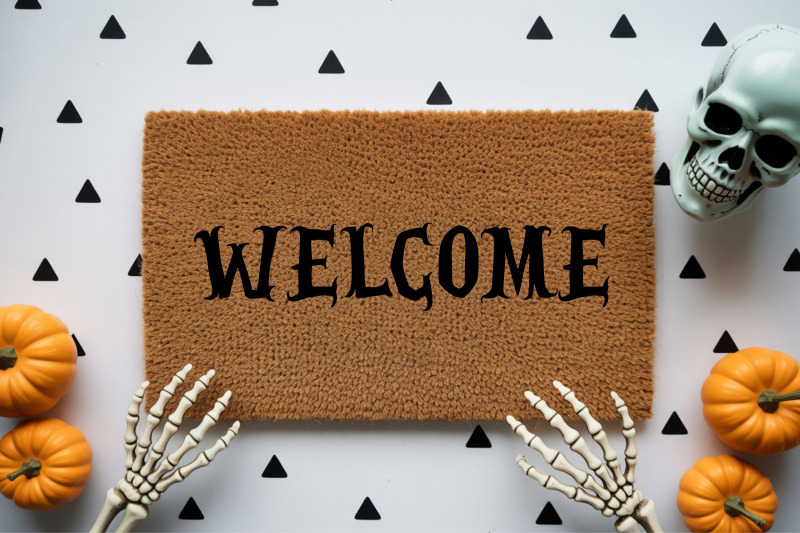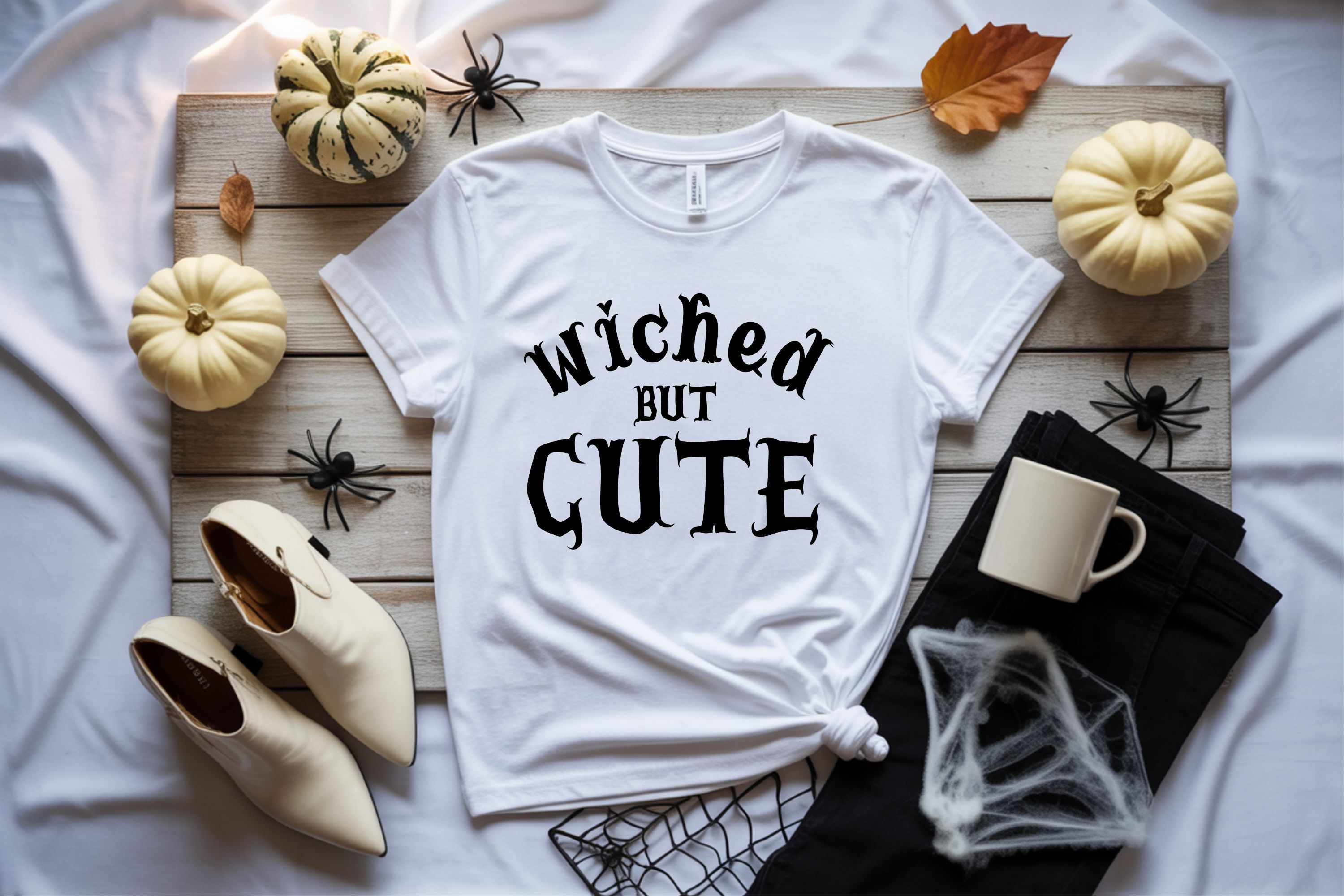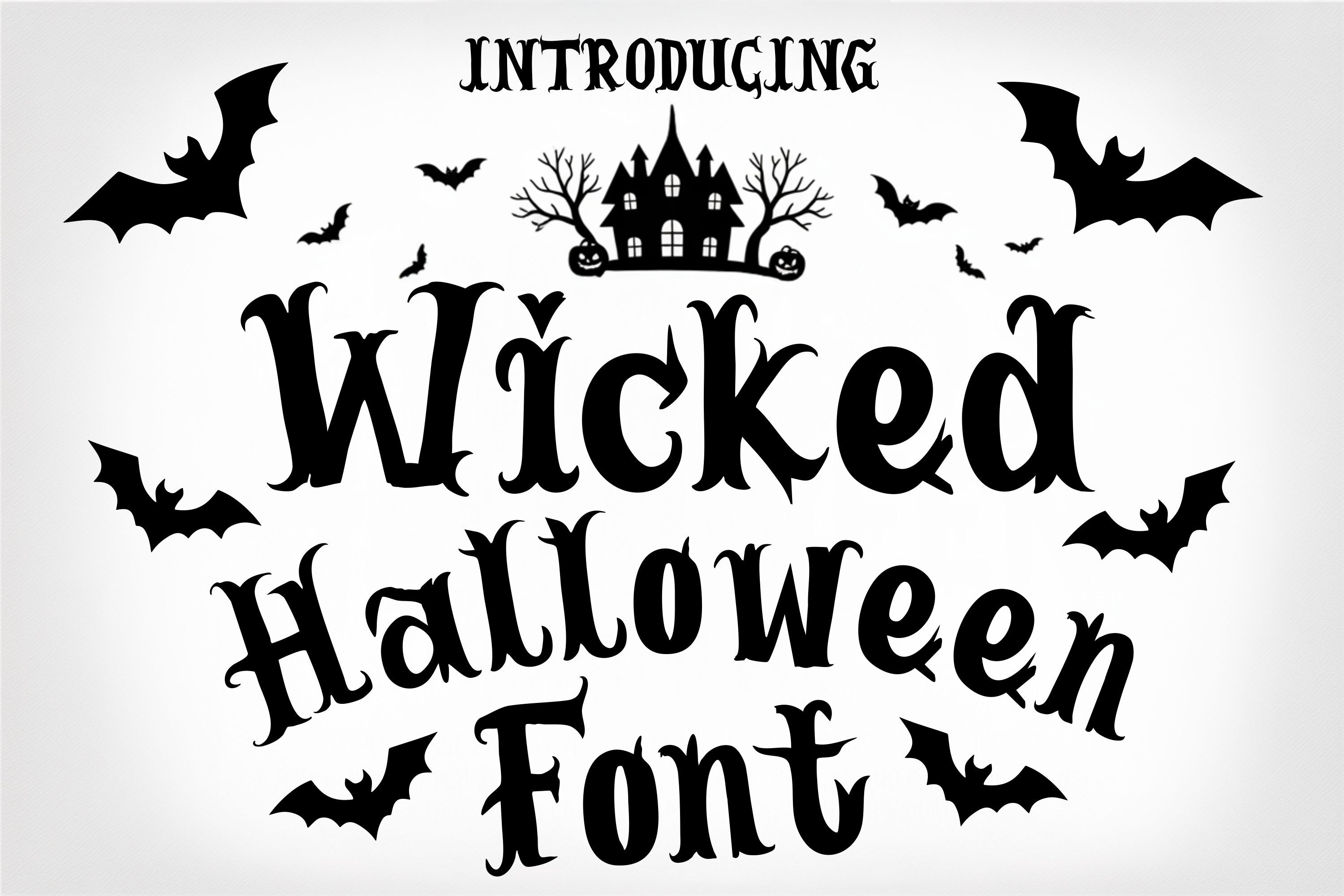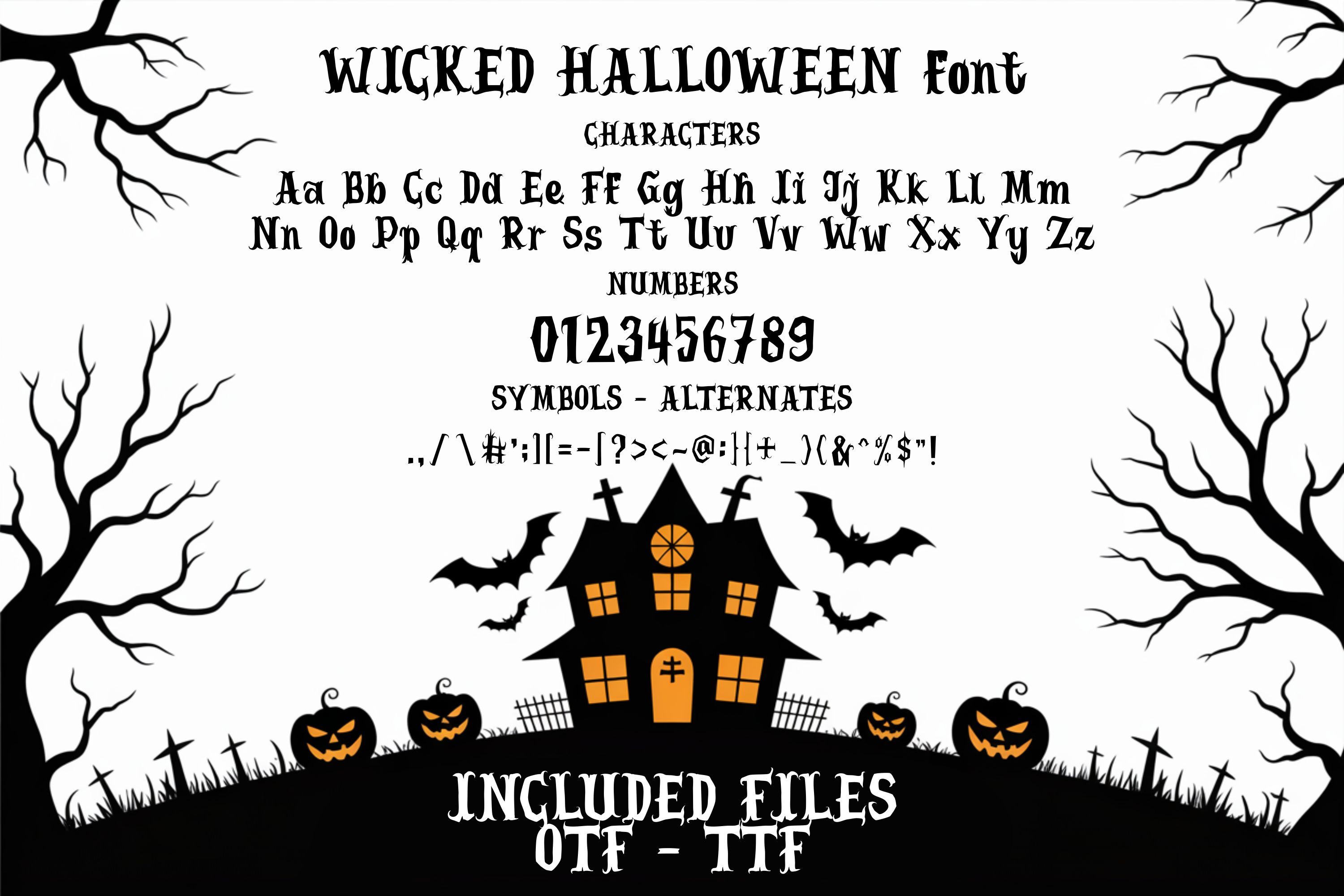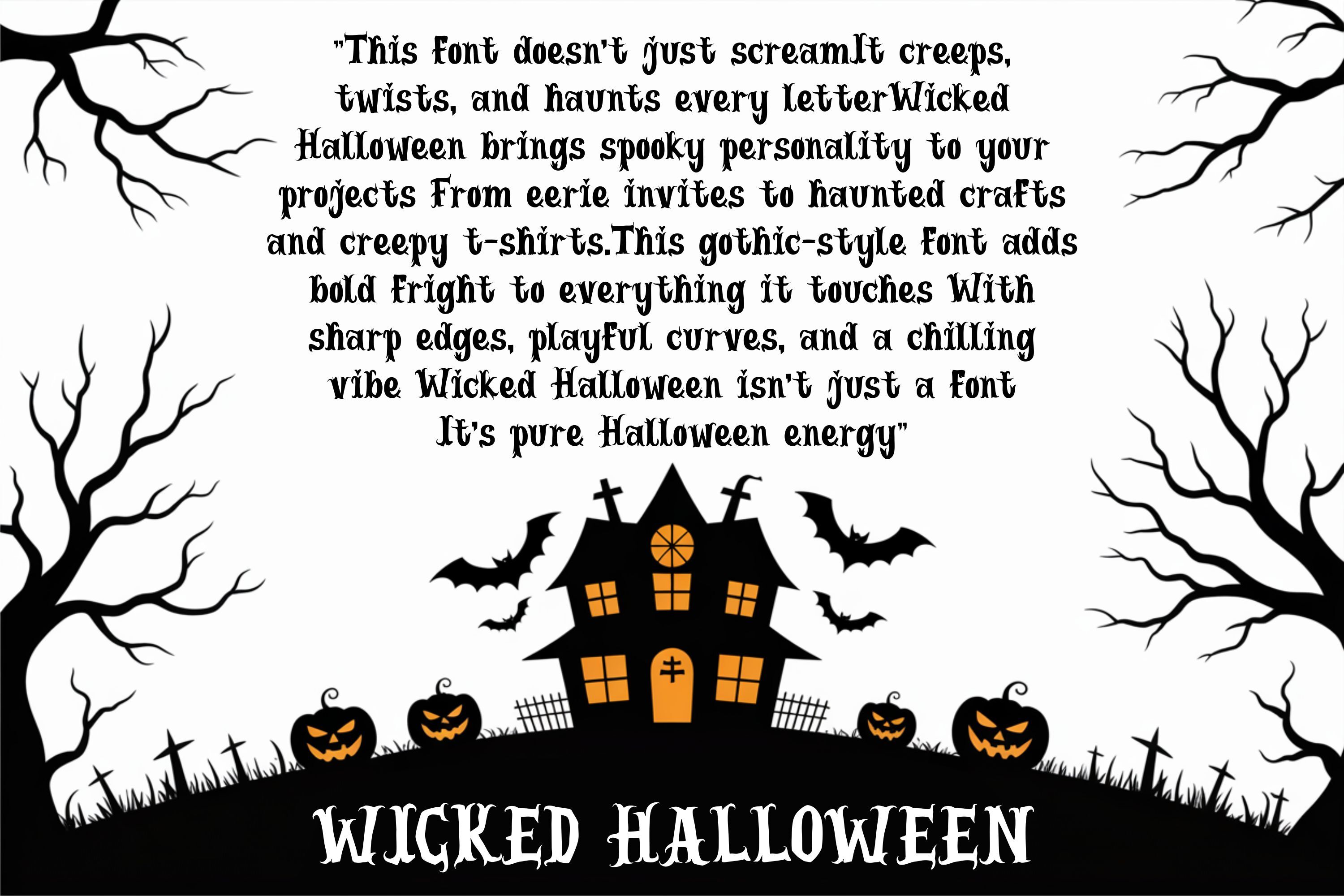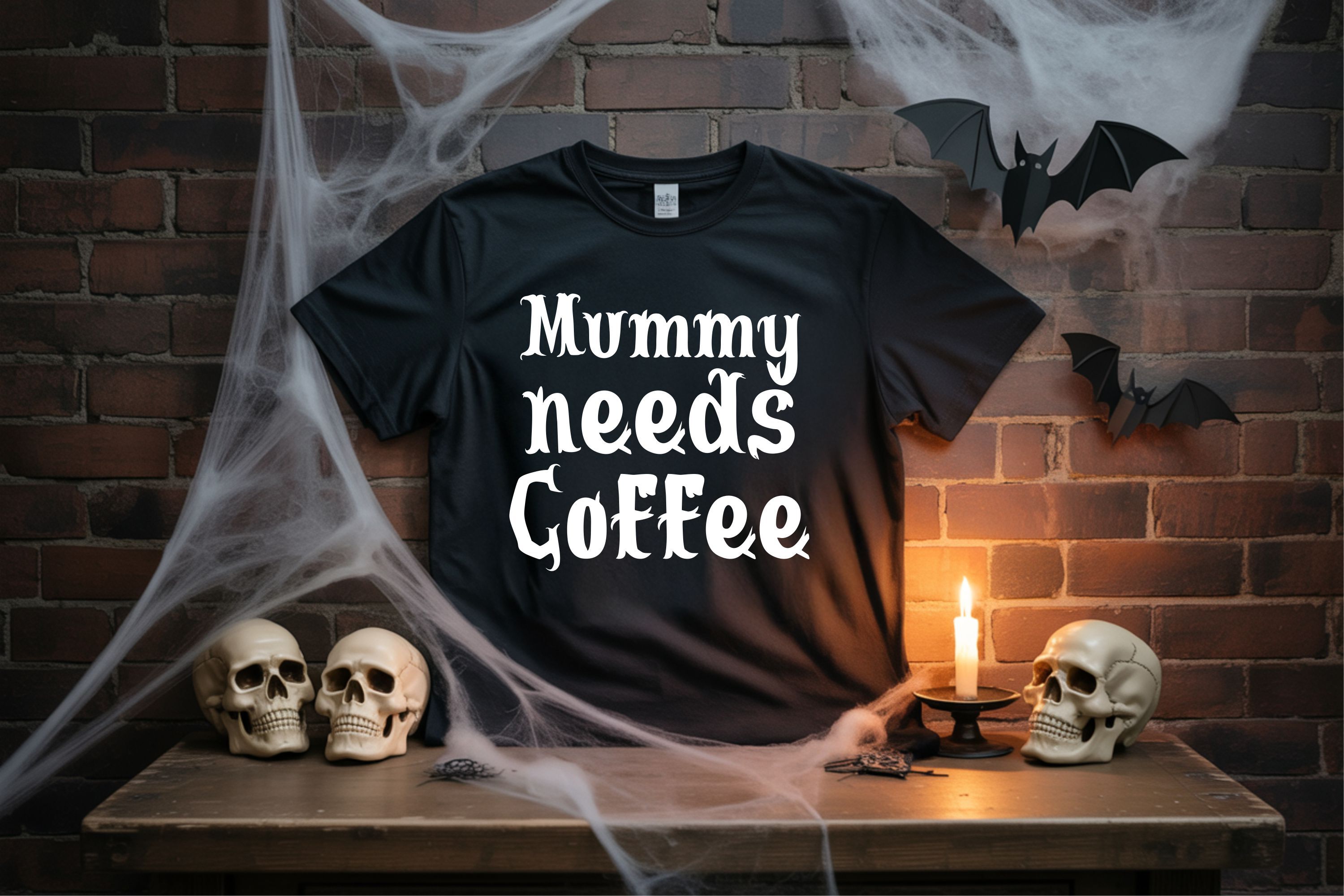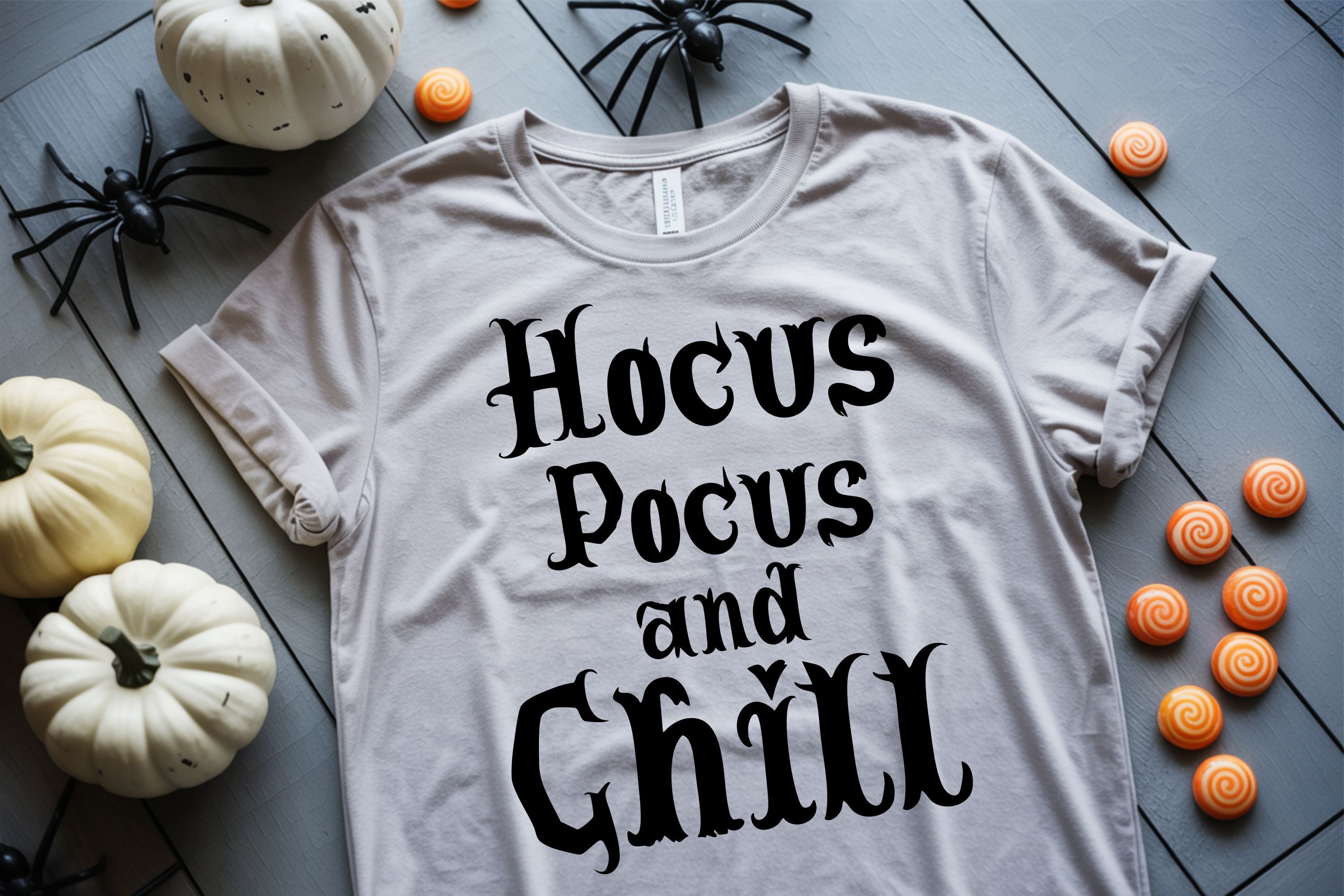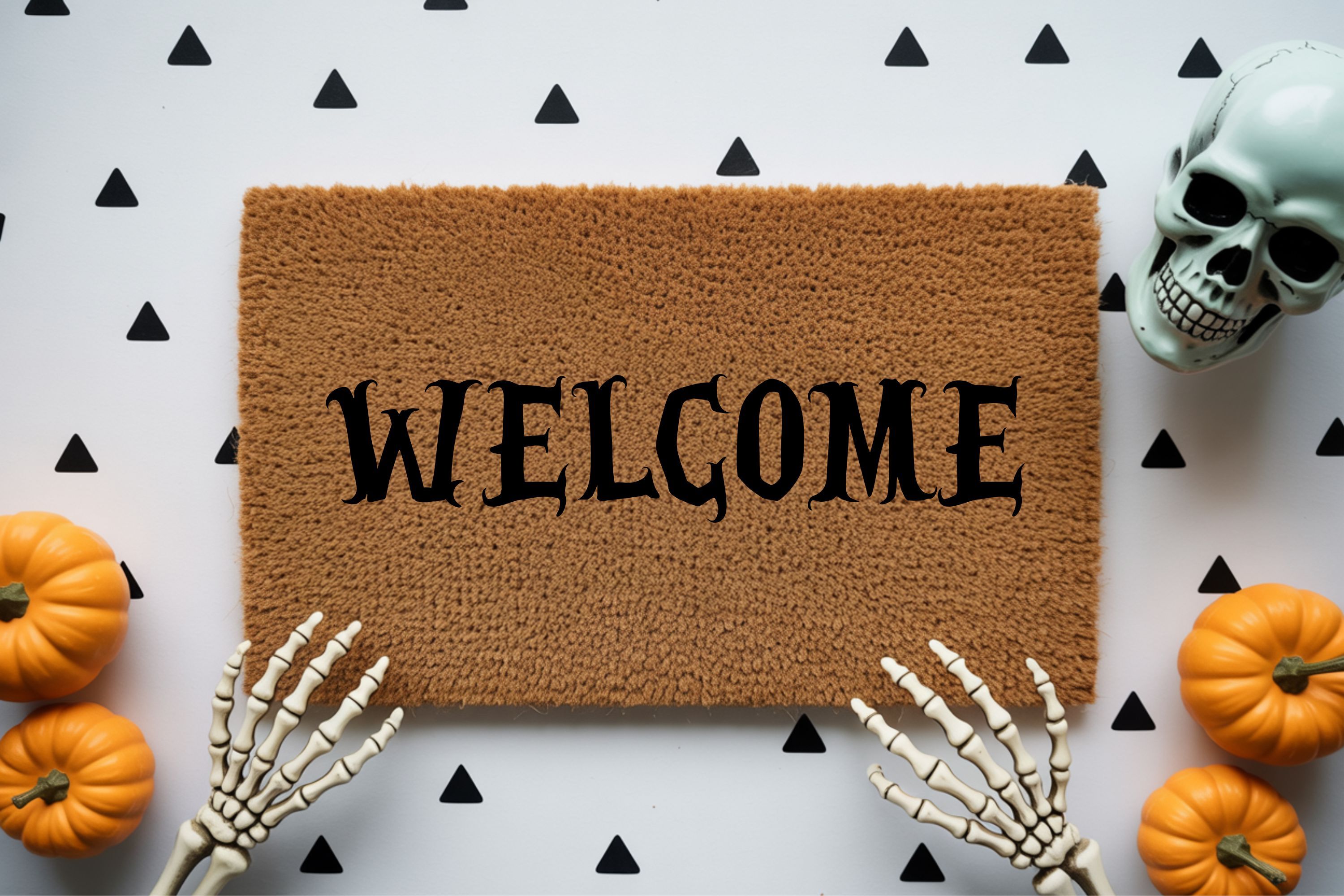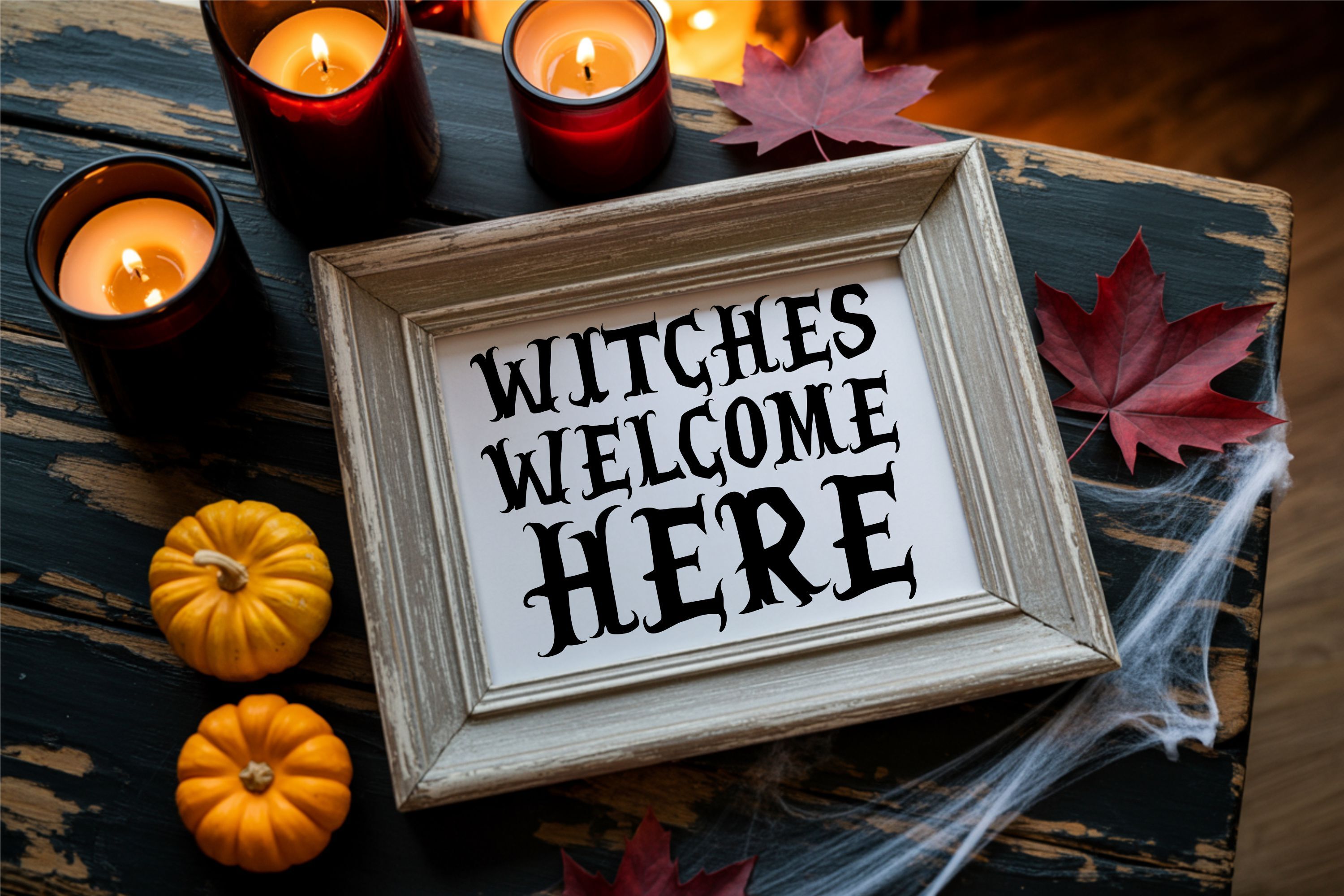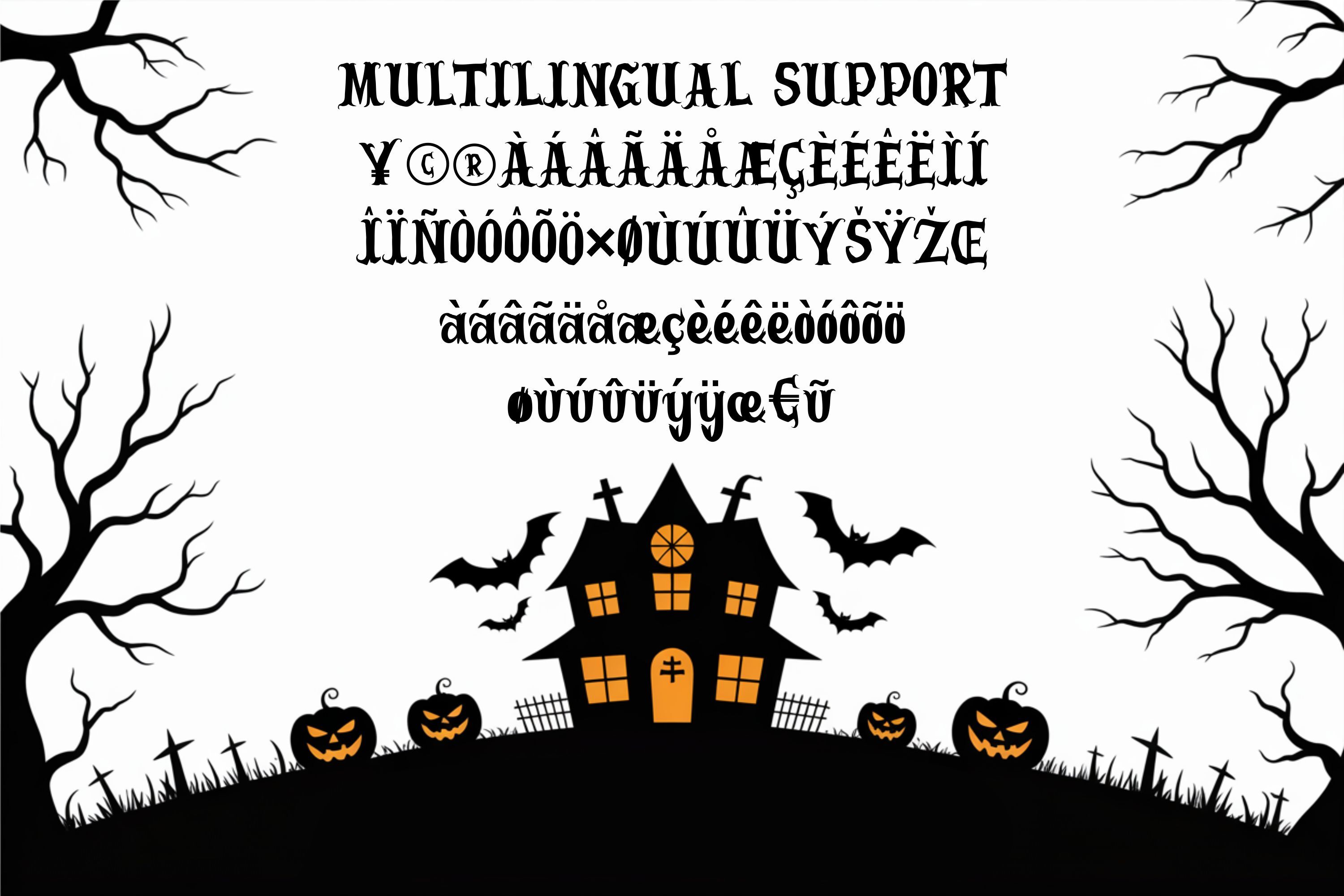
Wicked Halloween is a spooky and gothic display font that brings haunted vibes to all your Halloween designs. With twisted serifs and creepy curves, this typeface is perfect for Halloween crafts, scary signs, trick-or-treat bags, party invitations, porch decor, and horror-themed t-shirts. Whether you're crafting in Cricut or designing digitally in Procreate, Wicked Halloween adds a chilling, bold flair that makes your projects stand out. It includes uppercase and lowercase letters, numbers, punctuation, and multilingual support. The horror-inspired style is ideal for sublimation, SVG projects, Halloween printables, stickers, and more. Wicked Halloween isn’t just a font – it’s a frightfully fun experience for crafters and creatives alike.
Wicked Halloween
Wicked Halloween Font Spooky Gothic Typeface for Crafts